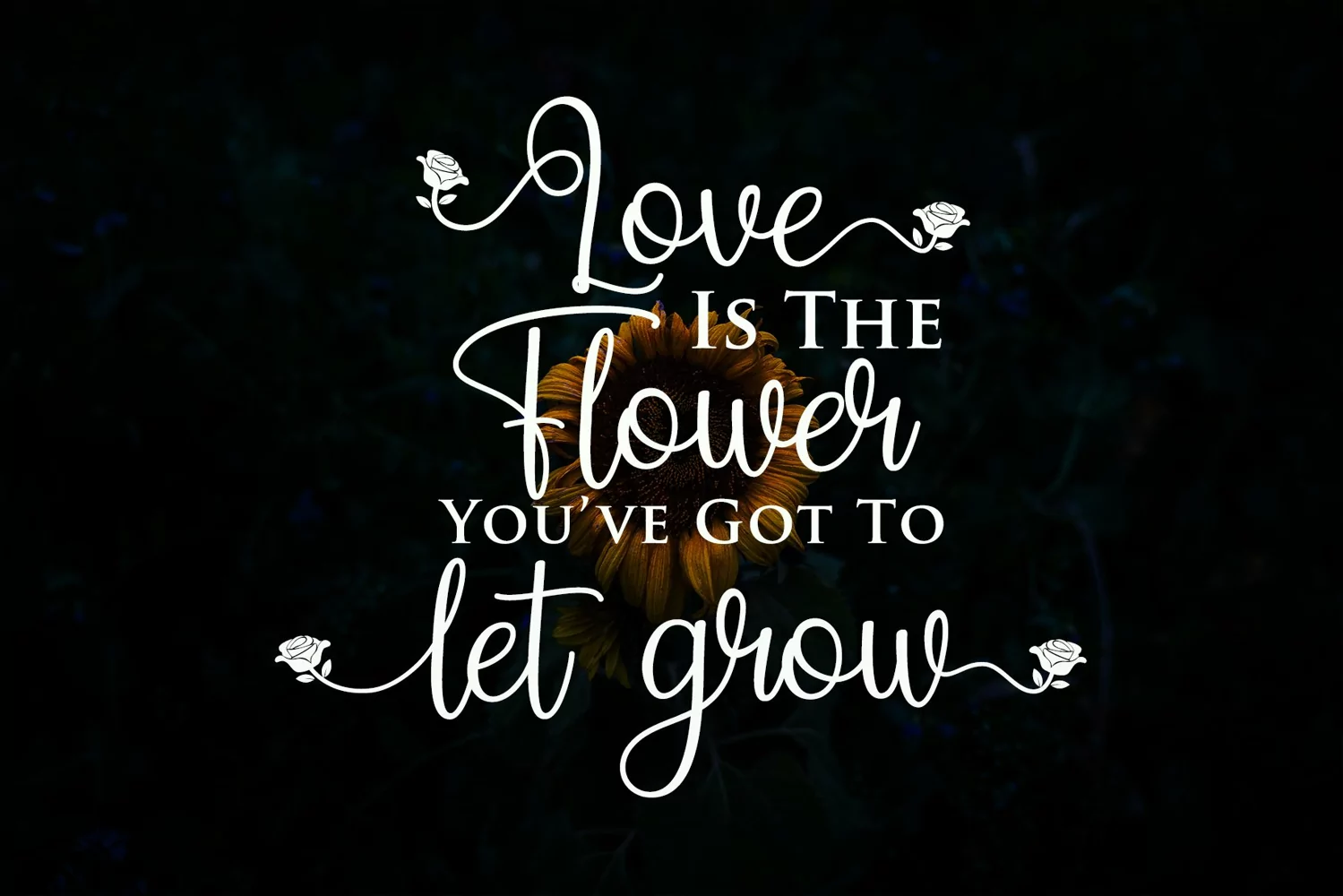
Beauty Floweris a minimalist and beautiful script font. Its casual charm makes it appear wonderfully down-to-earth, readable and, ultimately, incredibly versatile.
Beauty Flowerwill look outstanding in any context, whether it’s being used on busy backgrounds or as a standalone headline!
Alternate Character
Multilingual Support